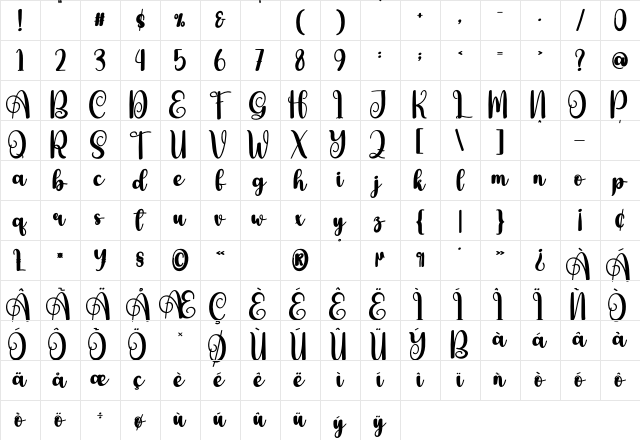
Achieved Regular Free Font
Achieved Regular
Design Context for Achieved
Achieved is a composed and adaptable typeface that performs quietly and consistently across a wide range of design contexts.